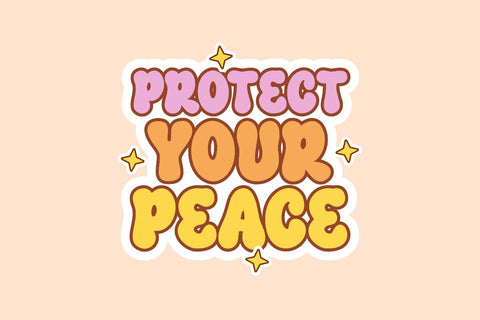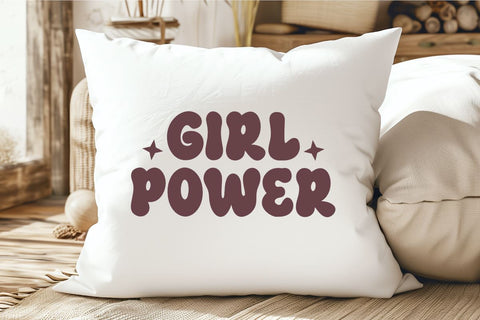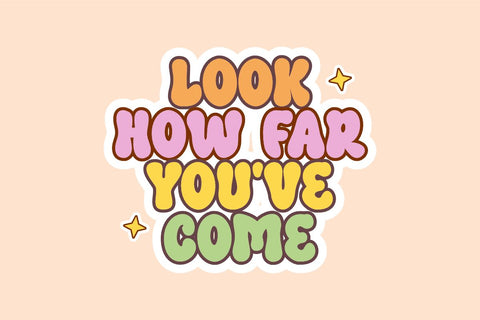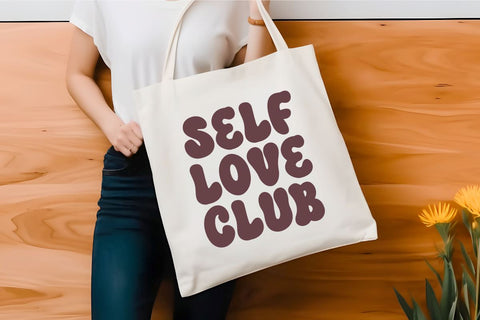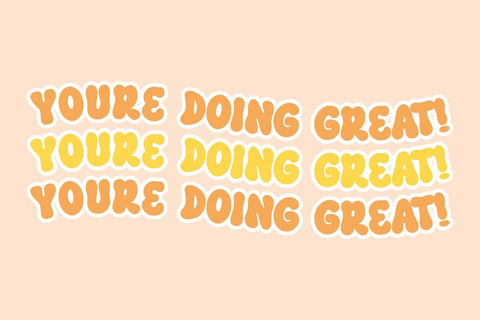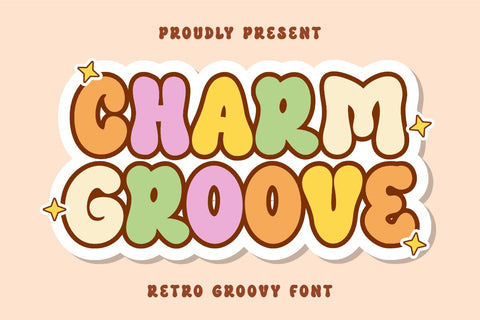
Charm Groove - Retro Groovy Font
Charm Groove is a retro groovy font. This font is inspired by groovy retro style sticker typography designs. This fun styled font is perfect for creative projects like stickers, t-shirts, and apparel that need a touch of retro groovy style. Apart from that, this font is also suitable for quotes, hoodies, DIY, decals, wall art, quotes, tumblers, key chains, children's book covers, mugs, tote bags, posters and other creative ideas. Not only that, this font is also suitable for branding needs, YouTube thumbnails, digital advertising and others.